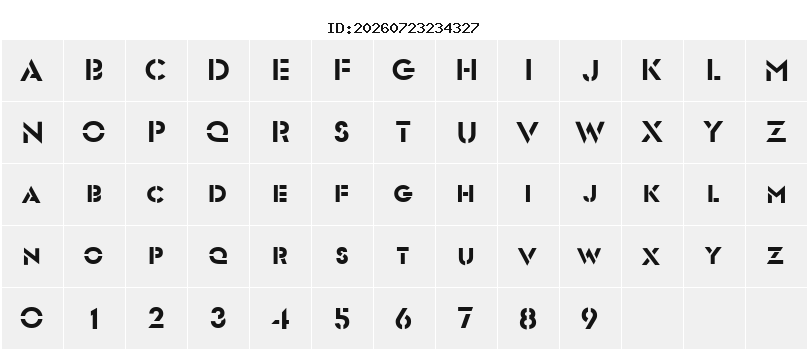
Exponat Preview
About Exponat.ttf
Exponat.ttf is a modern, elegant sans-serif font designed for ultimate readability and visual harmony. Perfect for branding, headlines, web design, and print materials.